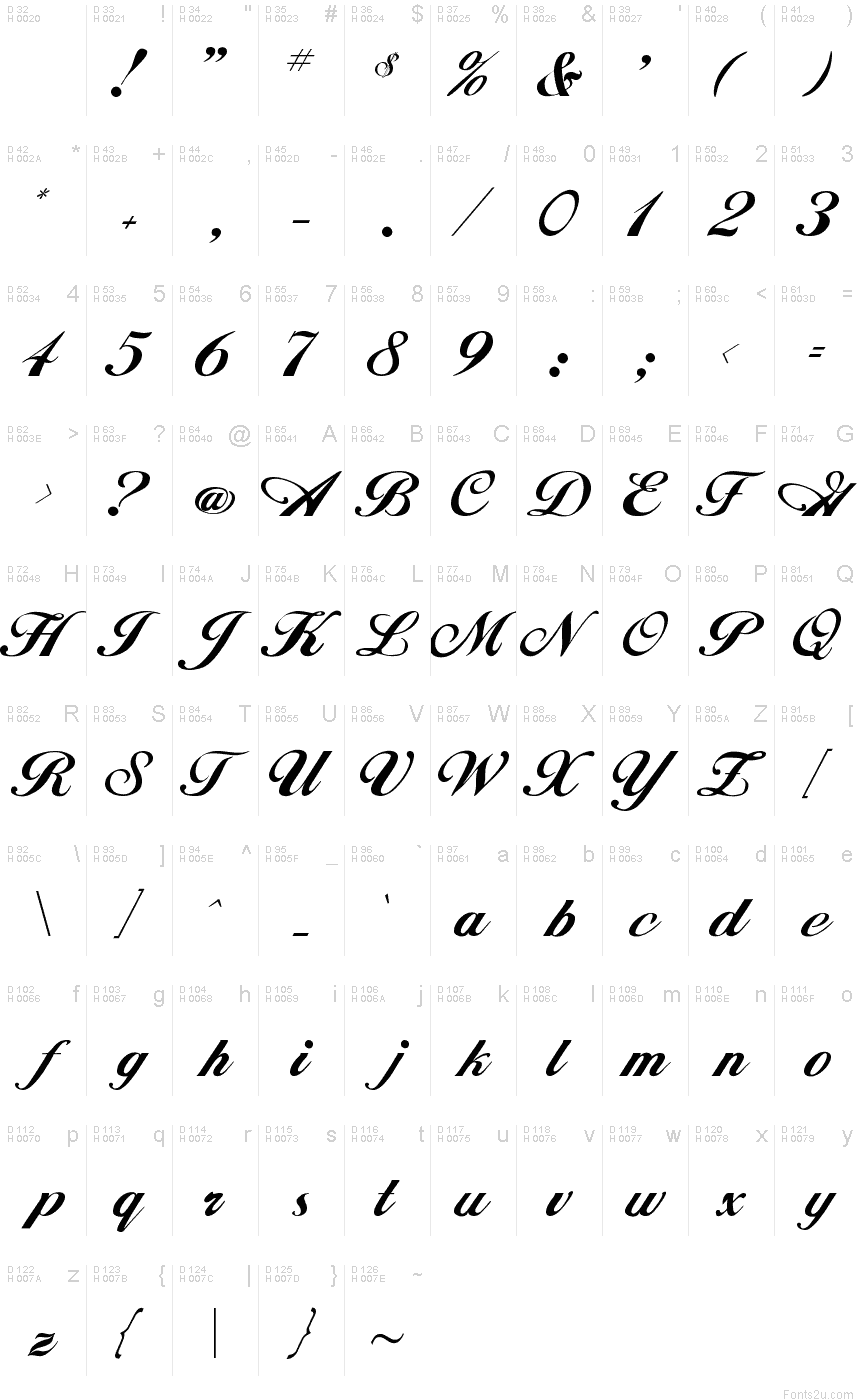
Hancock
Hancock font by Alltype is a free calligraphy typeface with the swooping confidence of a signature penned in wet ink. Its tall, slanted letters and lush curves feel like they’ve been pulled across the page by a flexible nib, giving every word a sense of ceremony and movement that’s hard to fake with more generic scripts.
Using Hancock, headlines suddenly feel like names on a champagne bottle or the title page of a keepsake book. This free font shines on wedding invitations, upscale packaging, boutique logos, certificates, book covers, and event posters where you want drama and polish. For a balanced layout, pair Hancock with a clean sans serif set small for supporting text, letting these bold script forms lead the show.